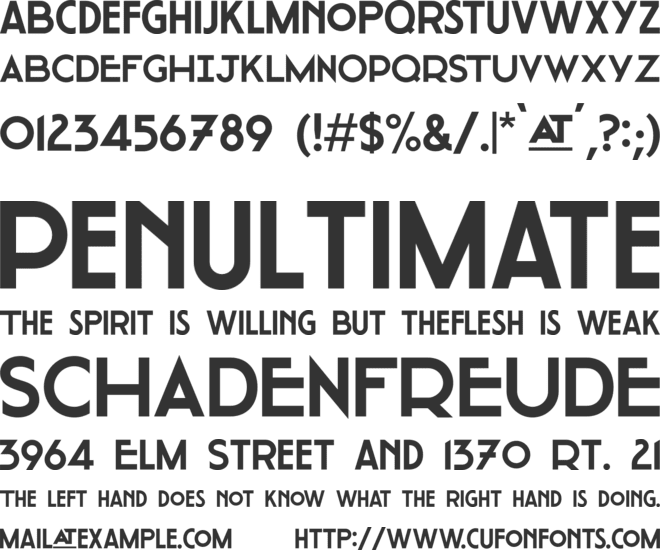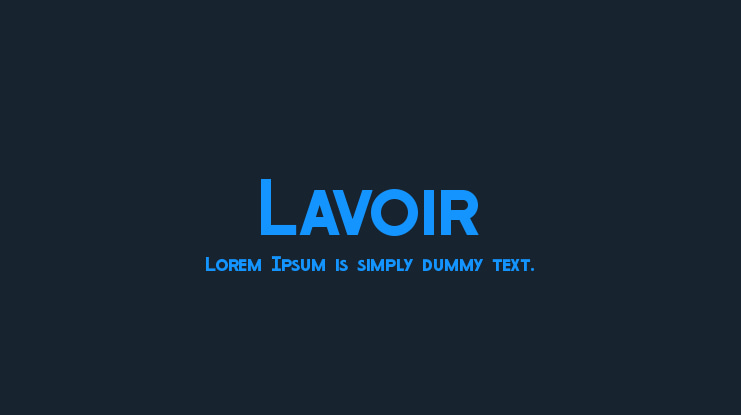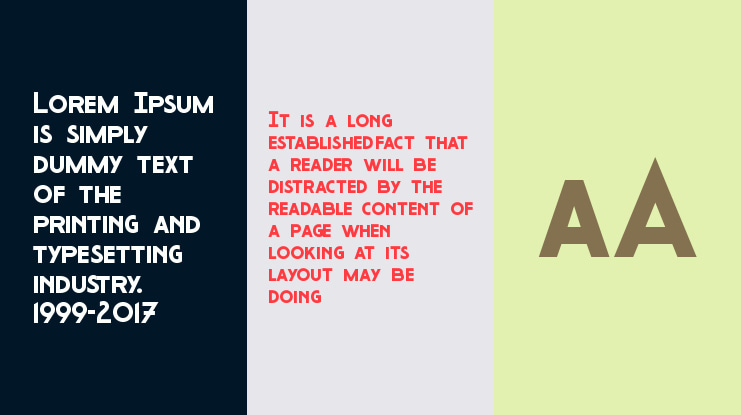
Lavoir Font Family
UnderNoControlTypofoundry (Alex Chavot)
Typographic work and development based on an old Art-Déco public bath sign in Lyon (France). From the few letters there I drew the entire font, adding ligatures, regular and old style figures as well as a small caps version.
At the time I drew the font, I didn't knew the OpenType functions so it could be cool to add some of them. And most kernings have to be improved.